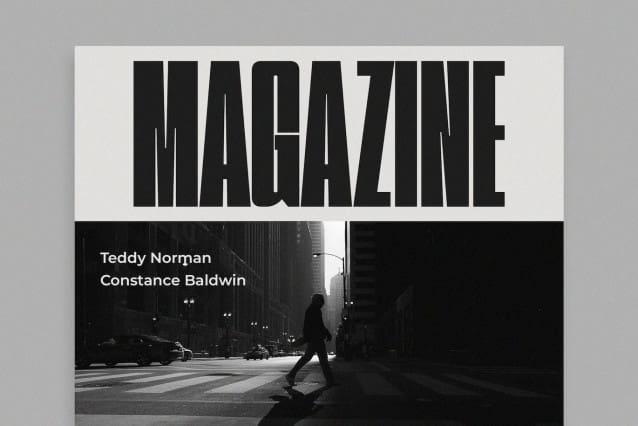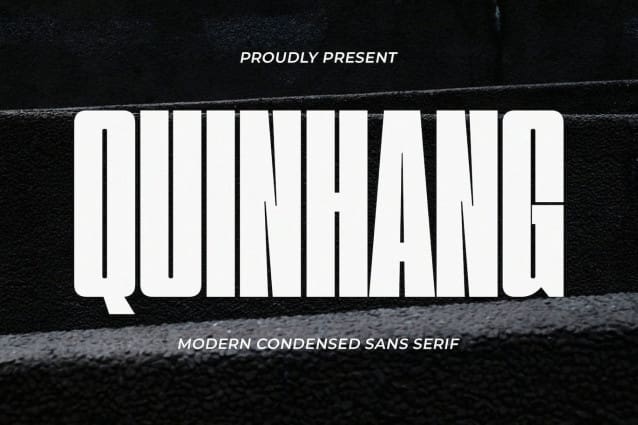
Quinhang Font
Quinhang Font, a modern sans serif font with an elegant style, perfect for brands, logos, invitations, magazines, product packaging, etc.